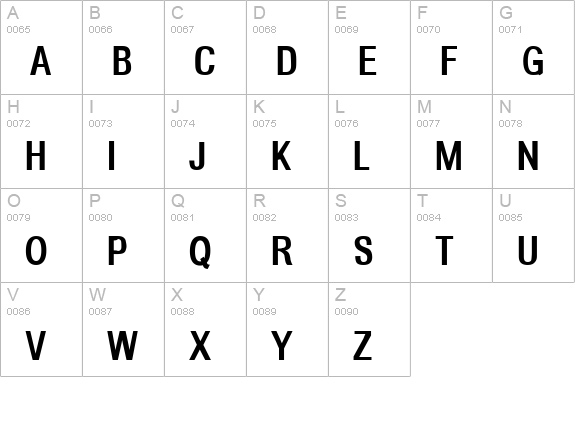
Headache Normal Font Details
Headache Normal is the standard, neutral variant in the Headache typeface family \xE2\x80\x94 well suited to general body text, paragraphs, and standard typographic work.
Headache Normal font is a visually appealing and versatile typeface that is sure to make your designs stand out. With its clean lines and modern aesthetic, this font is perfect for a wide range of projects, from branding and logo design to web and print materials. The Headache Normal font has a unique and distinctive style that adds a touch of creativity and sophistication to any design. Its balanced proportions and smooth curves create a harmonious and pleasing visual experience for readers. One of the best things about Headache Normal font is that it is free! Yes, you read that right. This incredible font is freely available to download at FontsMarket.com. Whether you are a professional designer or just looking to add a touch of style to your personal projects, this font is a fantastic choice. With Headache Normal font, you can say goodbye to boring, generic typography and hello to a world of endless possibilities. Its wide range of weights and styles allows you to experiment and create unique and captivating designs that will leave a lasting impression. So why wait? Head on over to FontsMarket.com and download the Headache Normal font today. Elevate your designs and make a statement with this eye-catching typeface. Get ready to unleash your creativity and watch your designs come to life with Headache Normal font.